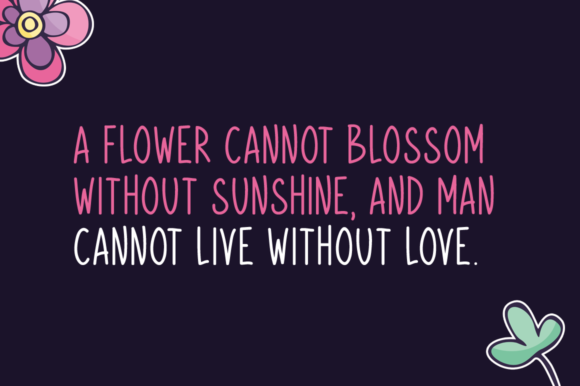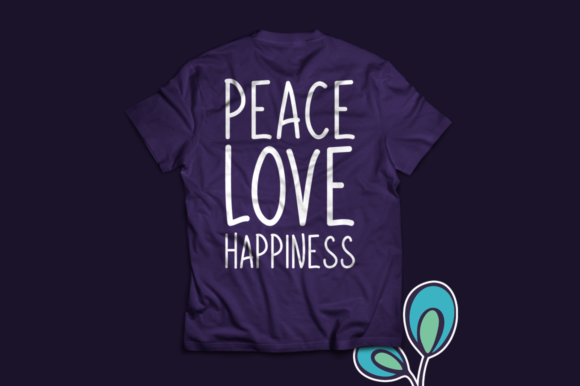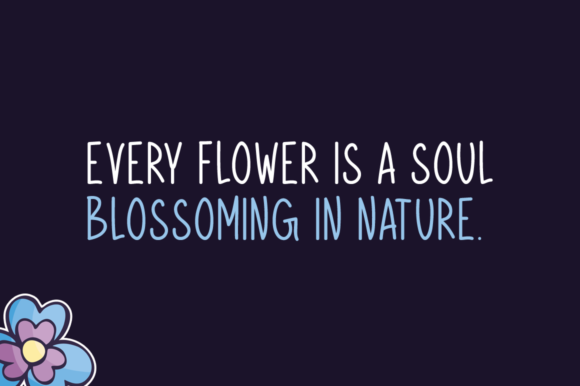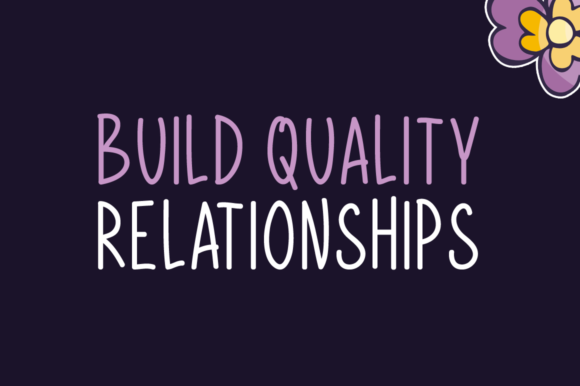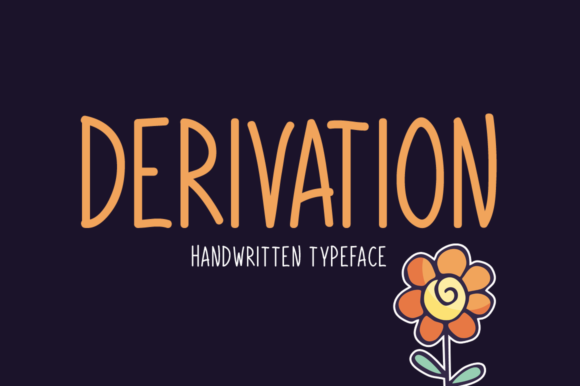
Introducing Derivation Font: The Playful Handwritten Font for Creative Projects
Are you a designer, crafty person, or someone who loves to add a personal touch to their projects? Look no further than Derivation Font, a delightful handwritten font that’s perfect for creative endeavors. With its playful and charming vibe, Derivation Font is ideal for inspirational wall posters, branding, and any project that requires a touch of personality.
What is Derivation Font?
Derivation Font is a carefully crafted handwritten font that’s designed to bring a sense of fun and playfulness to your projects. Its unique and quirky style makes it stand out from more traditional fonts, allowing you to add a personal touch to your designs. Whether you’re working on a DIY project, creating social media graphics, or designing a brand identity, Derivation Font is the perfect choice.
Key Features of Derivation Font
- Playful and Whimsical: Derivation Font has a distinctly playful and whimsical feel, making it perfect for projects that require a lighthearted touch.
- Handwritten Style: The font’s handwritten style gives it a personal and organic feel, making it ideal for crafty projects and DIY enthusiasts.
- Unique Character: Derivation Font has a distinct character that sets it apart from other fonts, ensuring your projects stand out from the crowd.
- Easy to Read: Despite its playful nature, Derivation Font is easy to read, making it perfect for use in a variety of applications, from posters to social media graphics.
Uses for Derivation Font
Derivation Font is incredibly versatile, making it suitable for a wide range of creative projects. Here are some ideas to get you started:
- Inspirational Wall Posters: Add a motivational quote or message to your wall with Derivation Font, and make it a beautiful and eye-catching addition to your home or office.
- Branding and Packaging: Use Derivation Font to create a unique and memorable brand identity that stands out from the competition.
- Social Media Graphics: Add a touch of personality to your social media graphics with Derivation Font, and make your posts stand out in crowded feeds.
- DIY Projects: Derivation Font is perfect for crafty projects, such as handmade cards, gift tags, and other paper crafts.
Tips for Using Derivation Font
To get the most out of Derivation Font, here are some tips to keep in mind:
- Mix and Match: Experiment with different font sizes, colors, and styles to create a unique look that suits your project.
- Keep it Simple: Derivation Font is best used in moderation. Avoid overusing the font, and balance it with simpler fonts to create visual interest.
- Play with Colors: Derivation Font looks great in a variety of colors. Experiment with different hues and shades to find the perfect match for your project.
Derivation Font is a delightful handwritten font that’s perfect for creative projects. With its playful and whimsical vibe, it’s ideal for designers, crafters, and anyone looking to add a personal touch to their work. Whether you’re creating inspirational wall posters, branding, or social media graphics, Derivation Font is the perfect choice. So why not give it a try and see how it can elevate your projects?